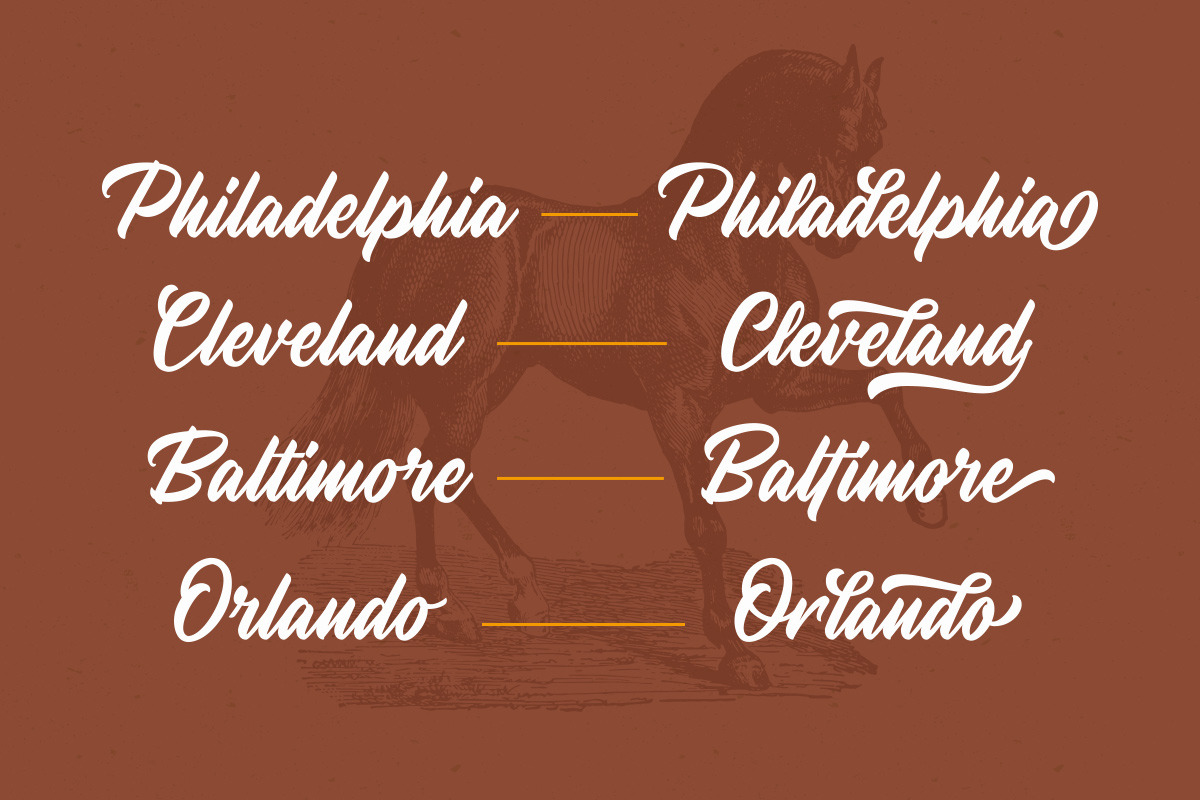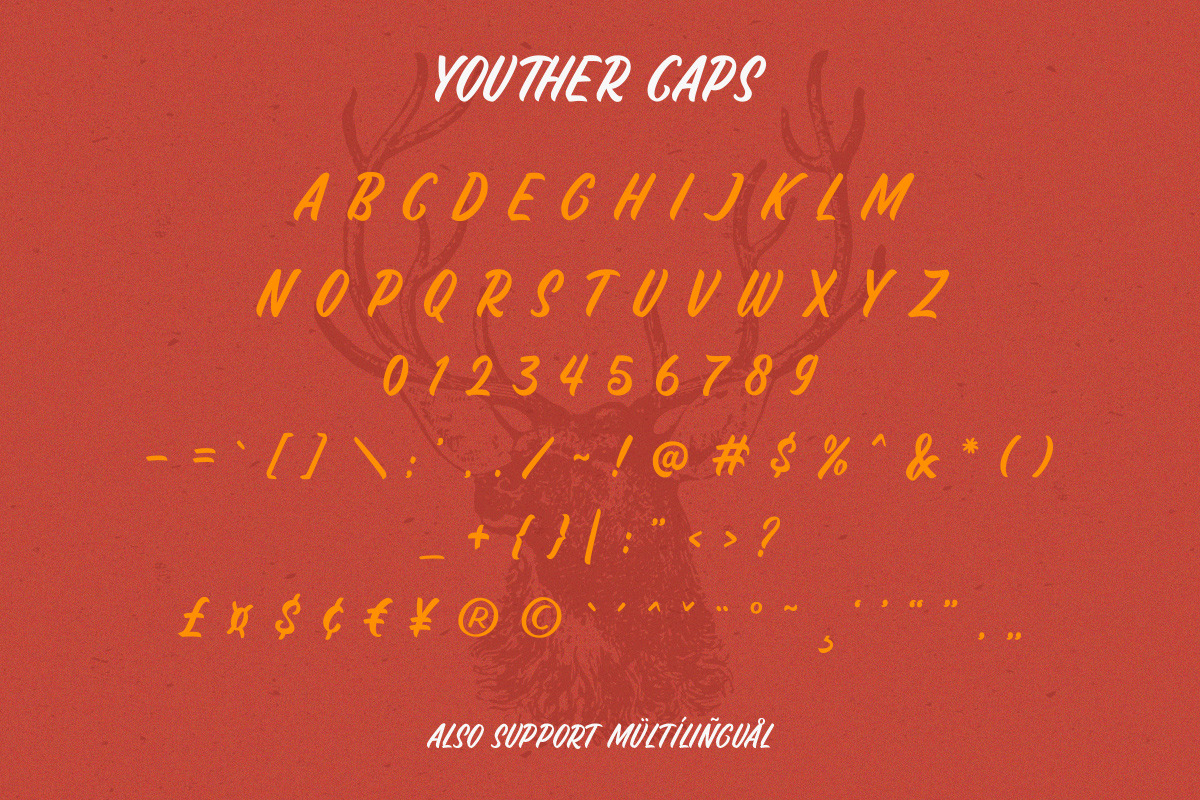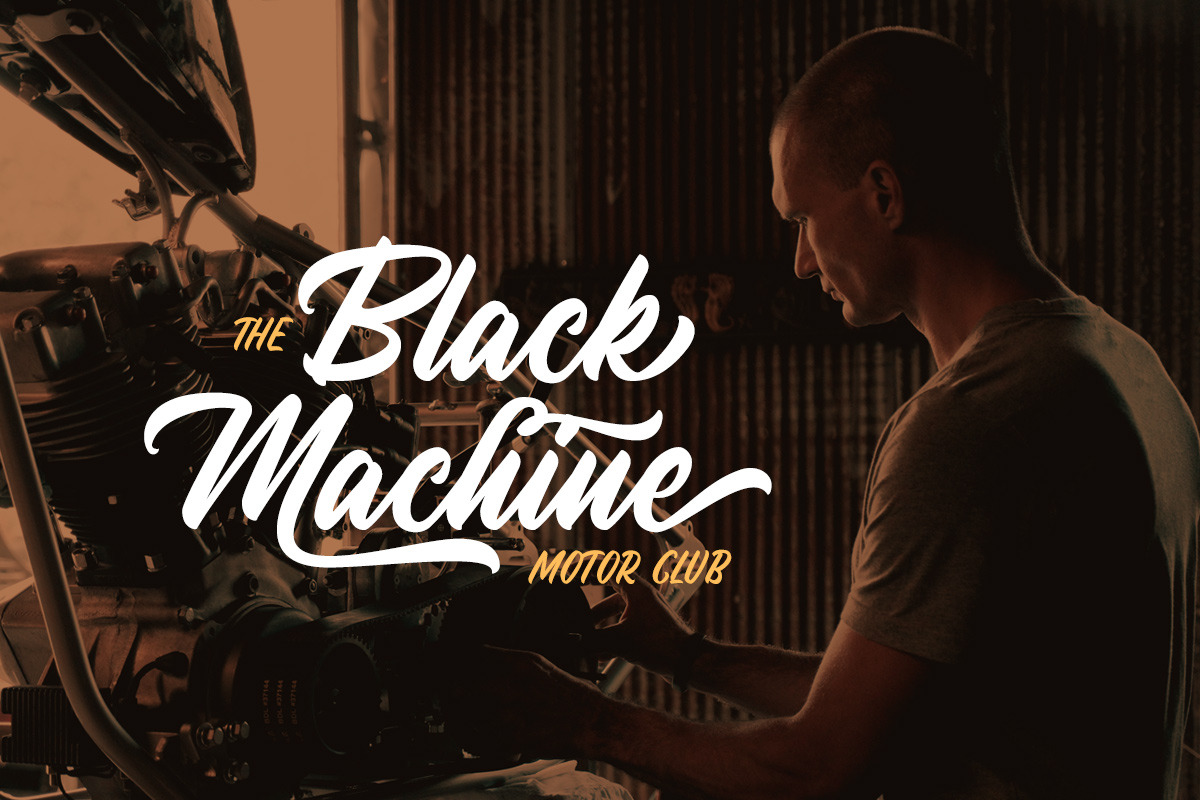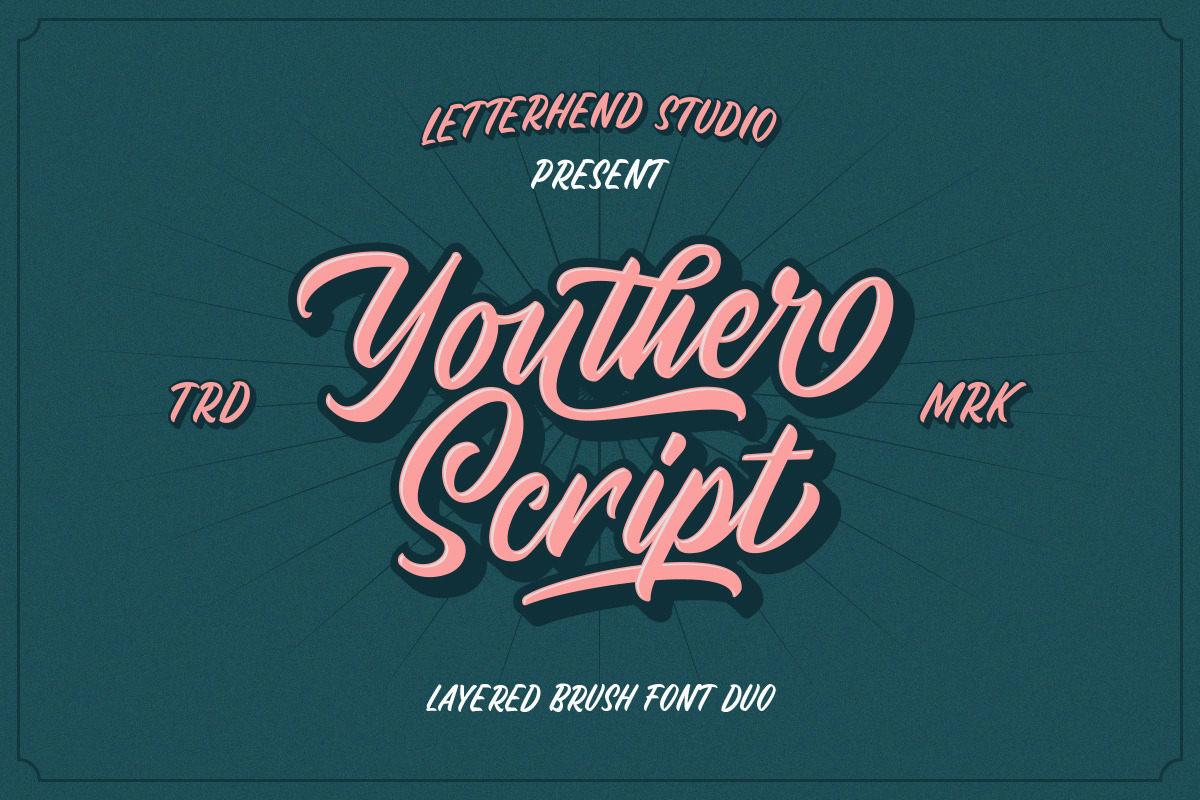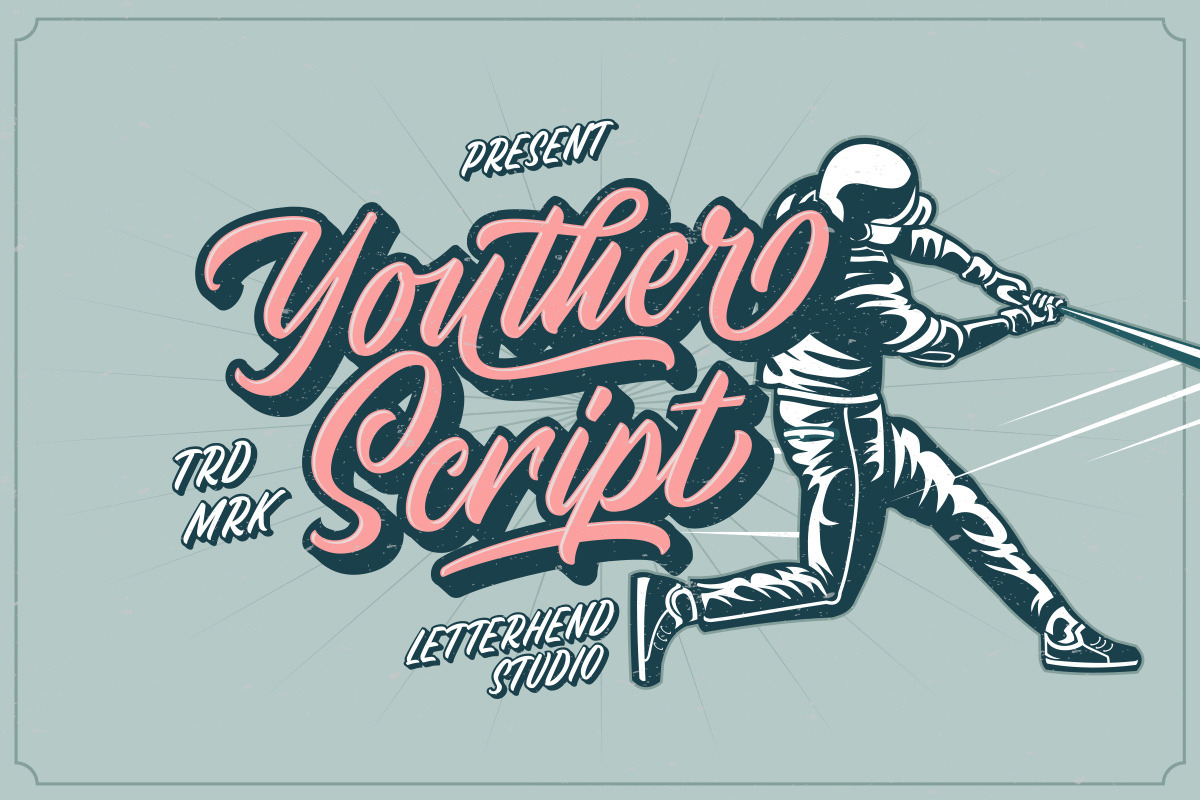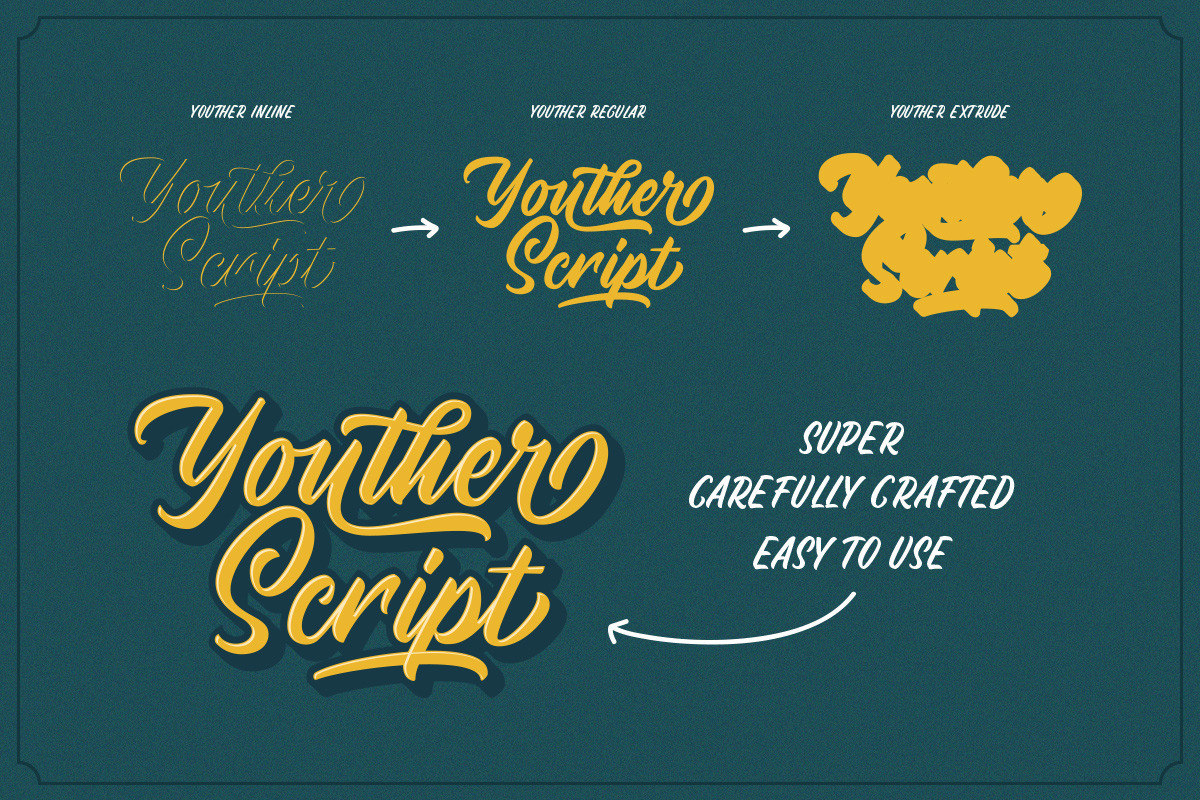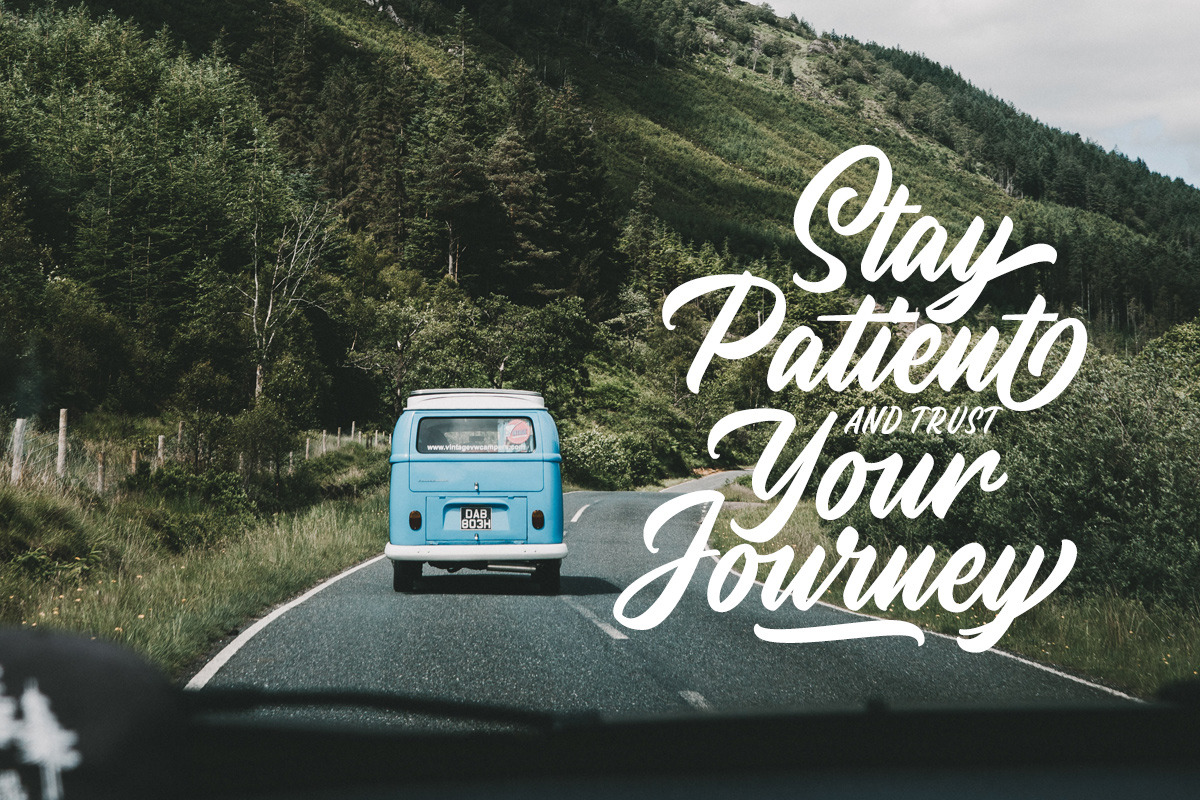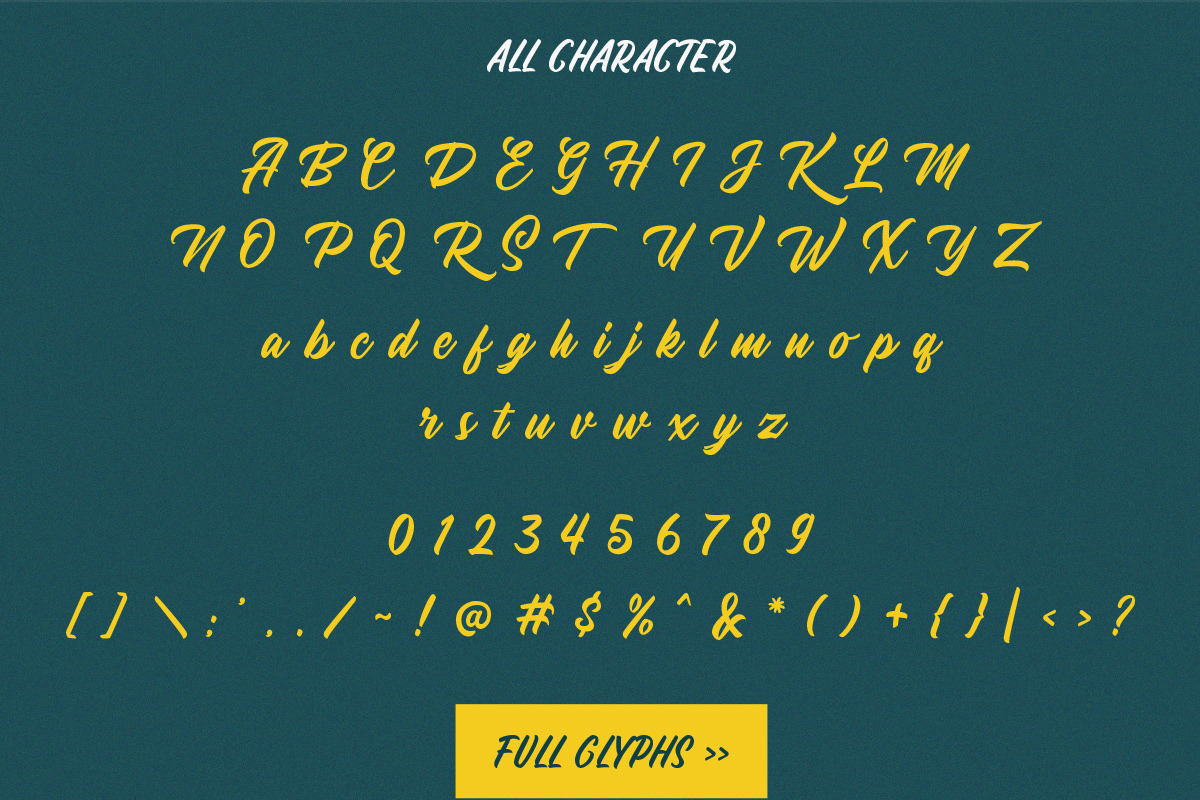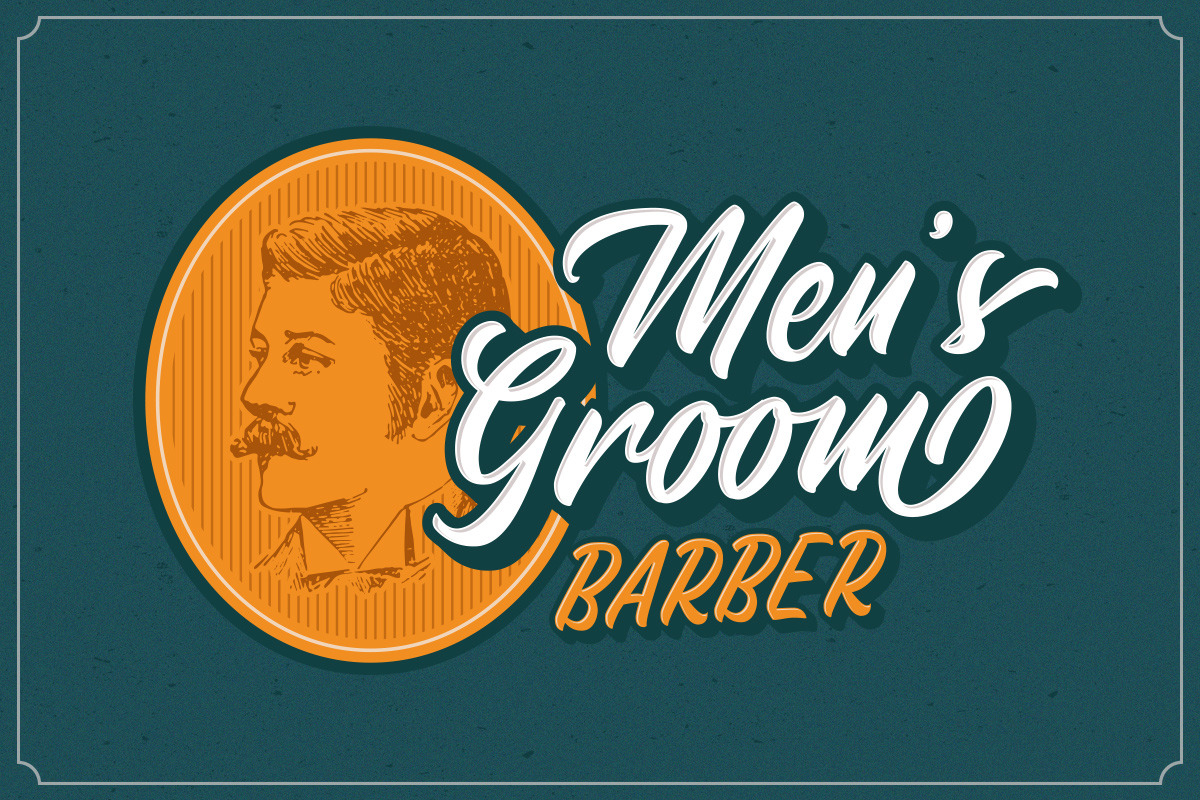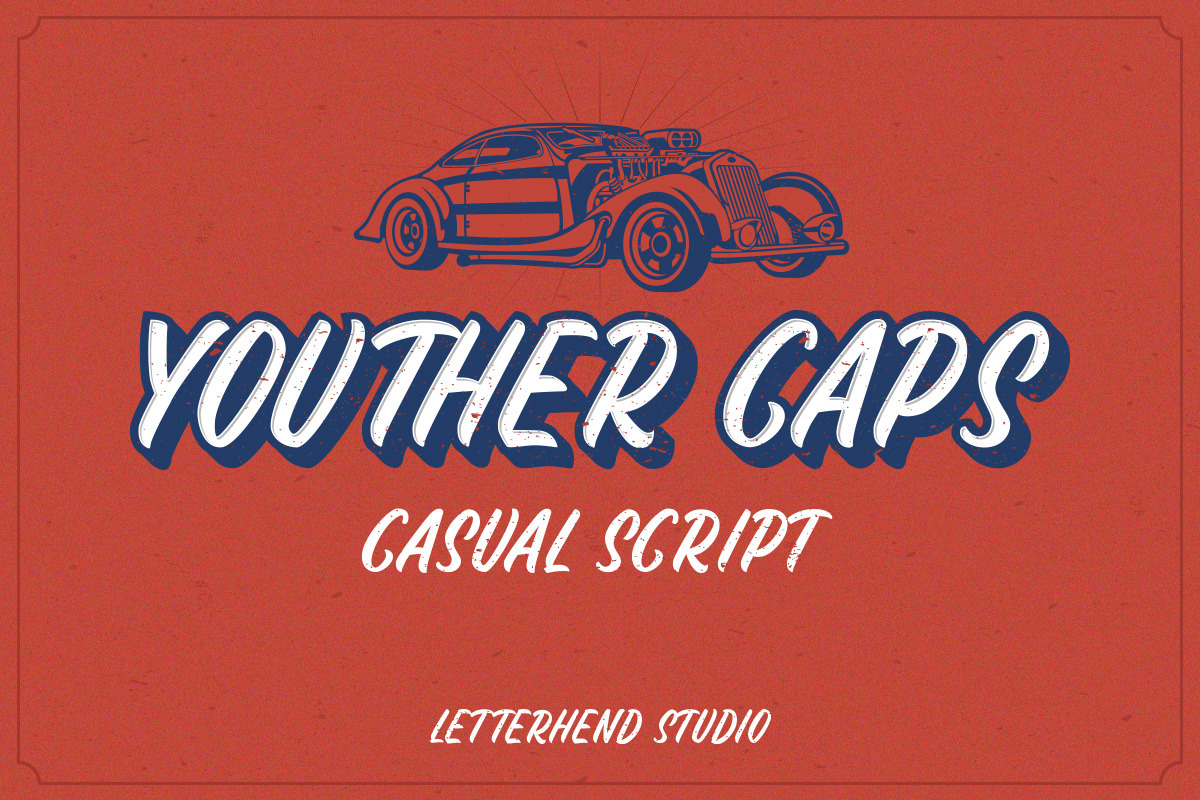
Youther Brush - Layered Font Duo
Introducing, Youther Brush - Layered Font Duo!
Youther is a font duo with layered style. Yes, you can make a fancy typography only with this fonts, without any plugin or action! This font family contain the fabulous script and also comes with caps font. Youther is perfect to be used as logotype, badge and label! This has many opentype features like ligature, stylistic alternate, contextual alternate, swash, etc and support multi language.